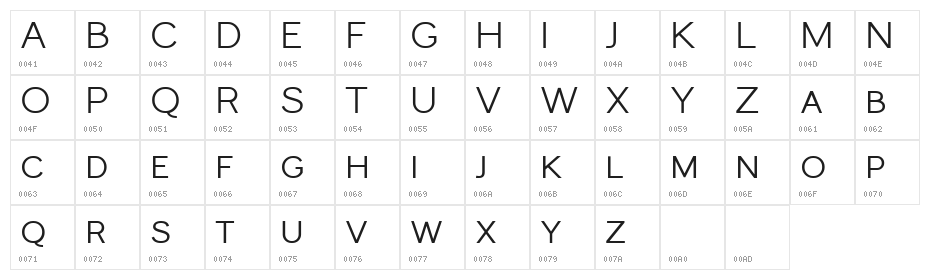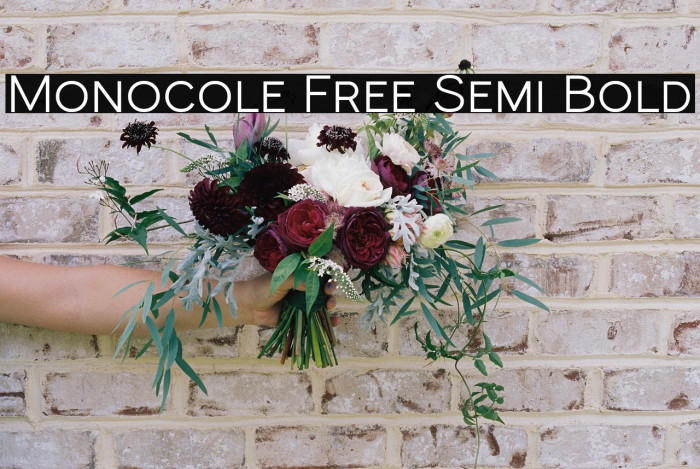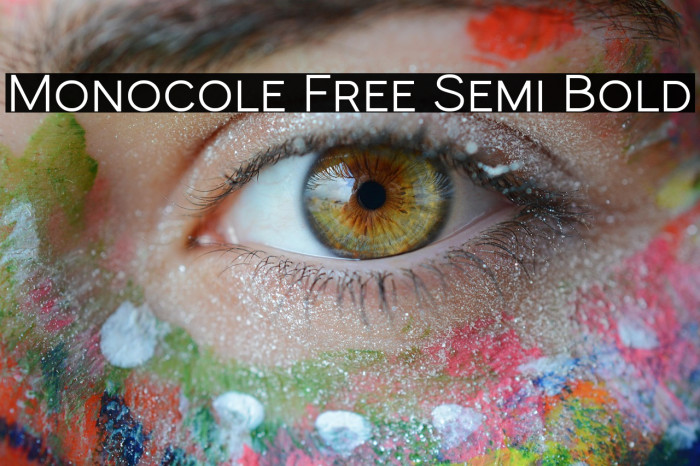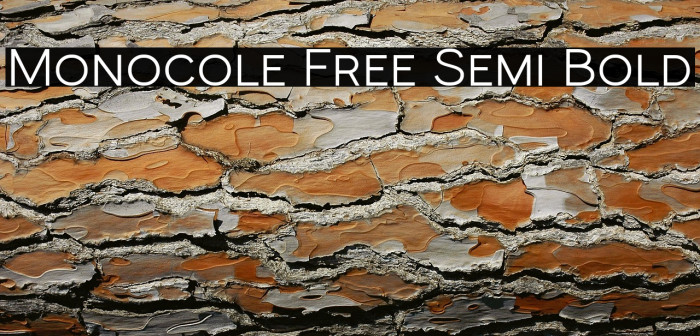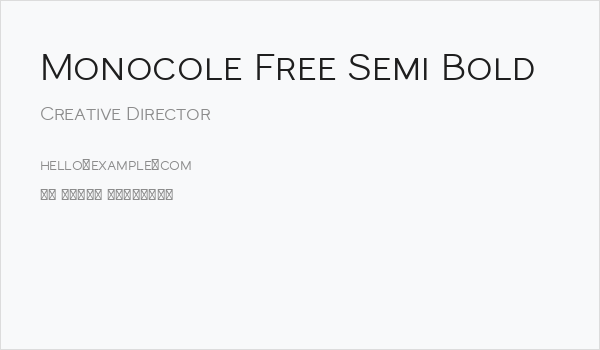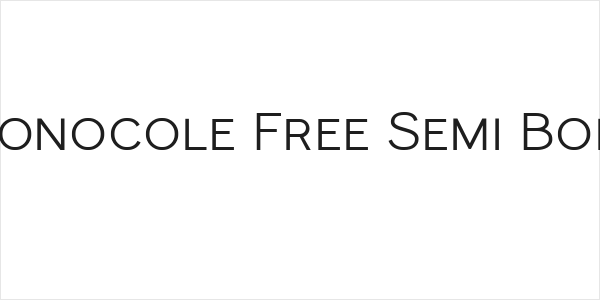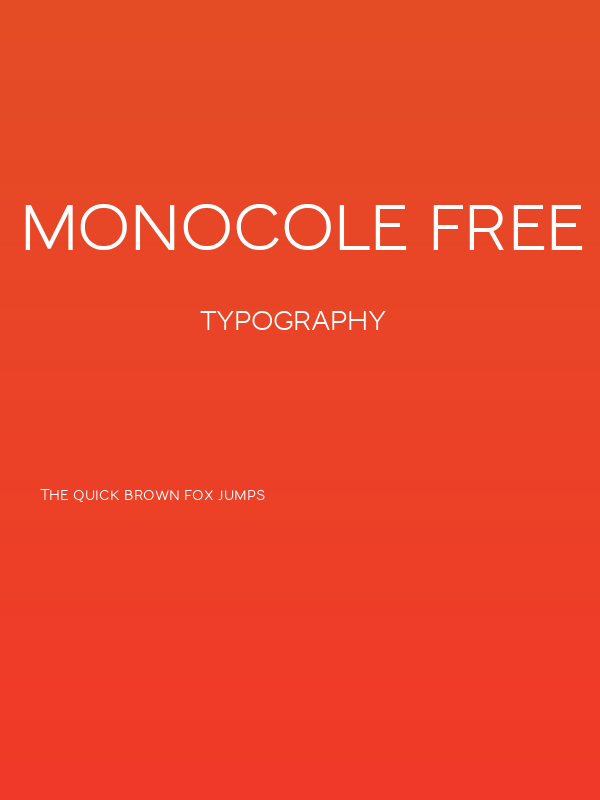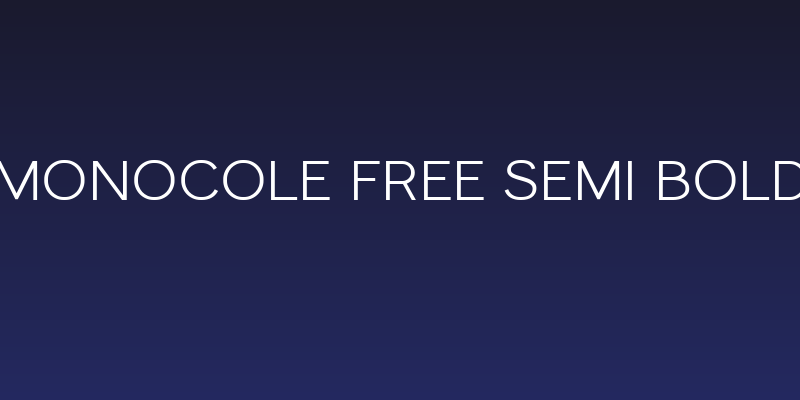
Monocole Free Semi Bold Font
Monocole Free Semi Bold Description
This font exhibits a clean and modern sans-serif style, characterized by its geometric shapes and uniform stroke widths. The letters are well-proportioned, with a consistent height and width that contribute to its readability. The design is minimalistic, emphasizing clarity and simplicity, making it suitable for a wide range of applications. The uppercase and lowercase letters maintain a harmonious balance, while the numerals and special characters are designed to complement the overall aesthetic. This font's versatility makes it ideal for both digital and print media.
| Proposed Projects | Ideal for branding, web design, editorial layouts, and corporate materials. |